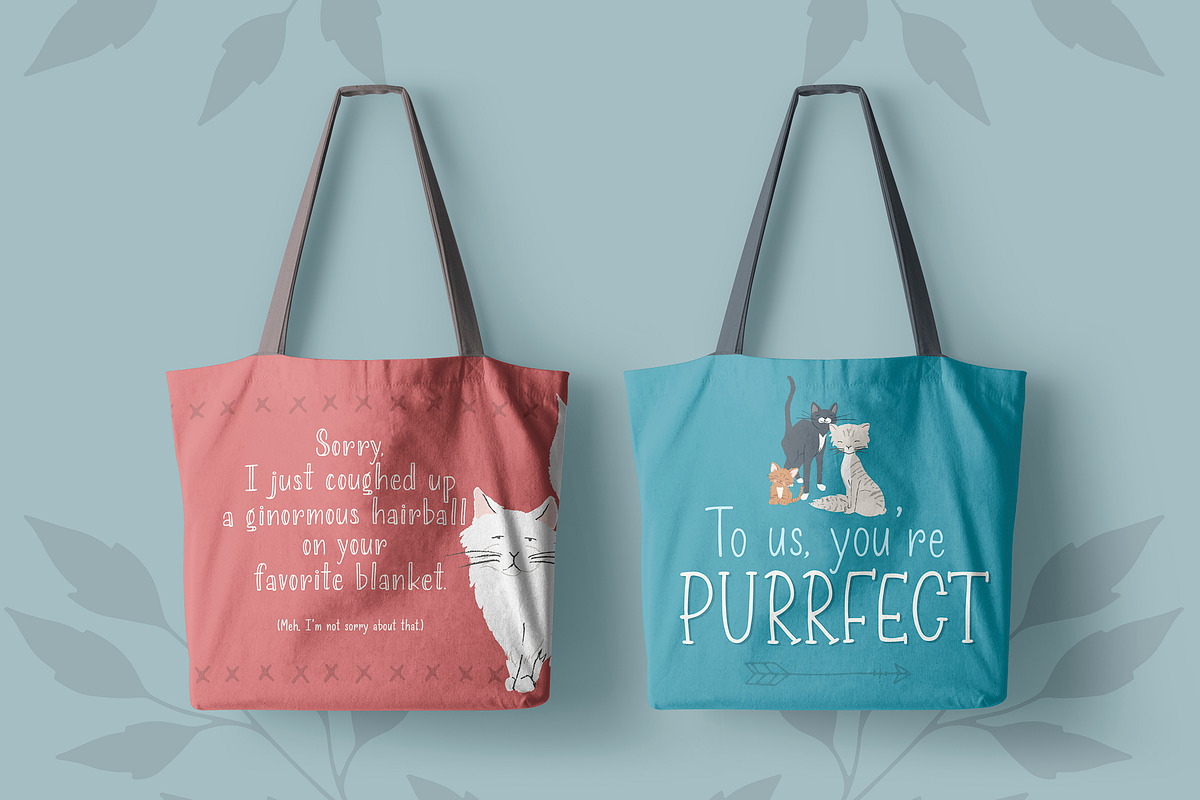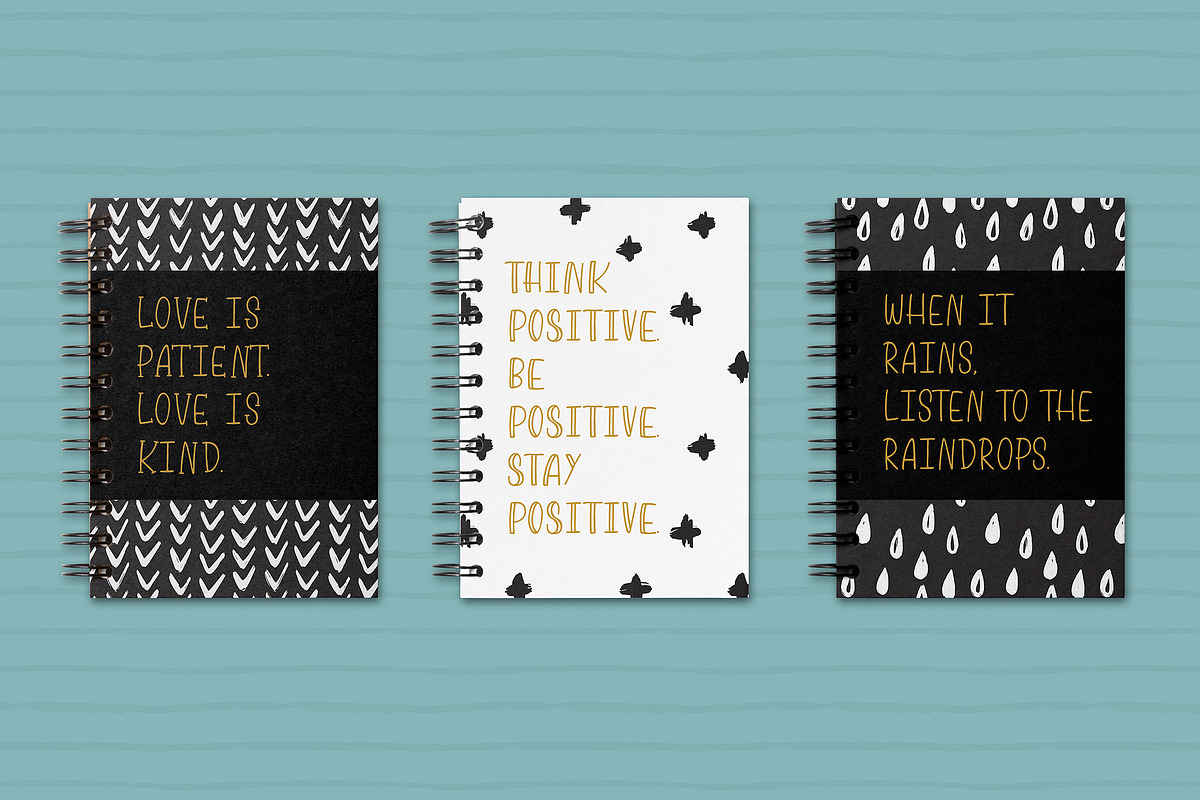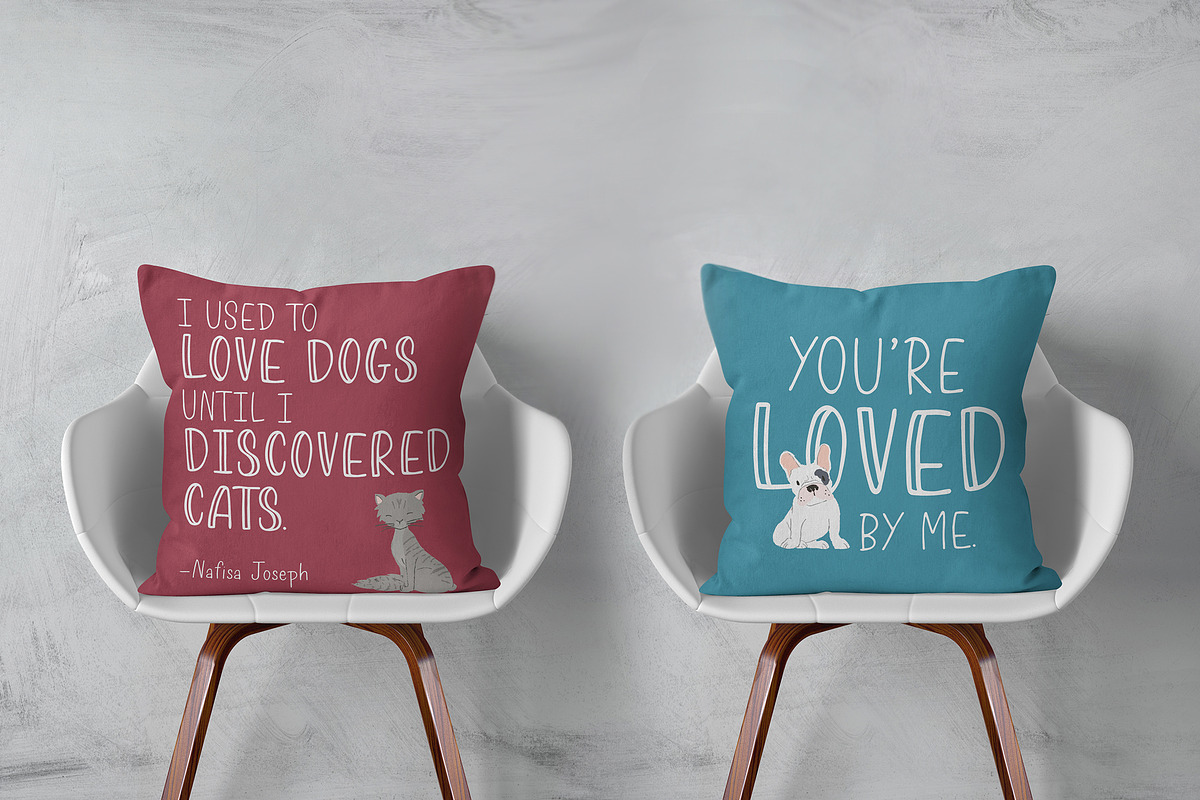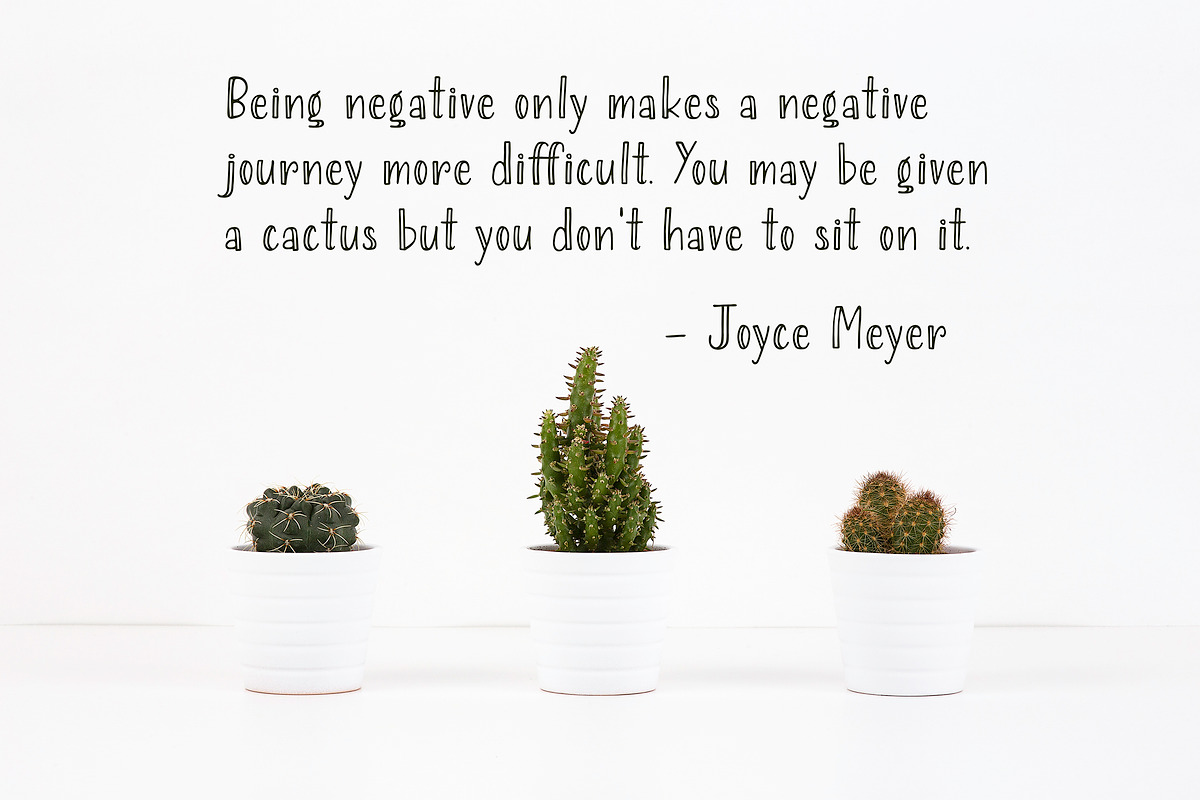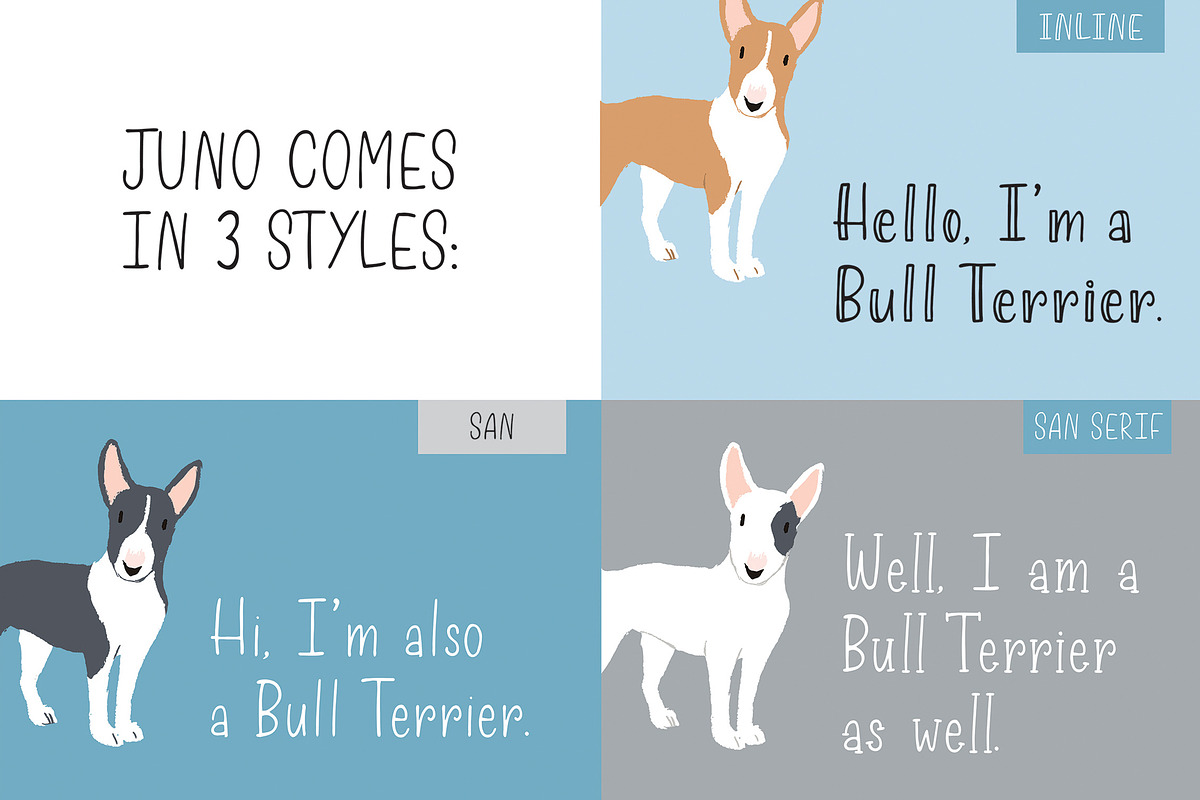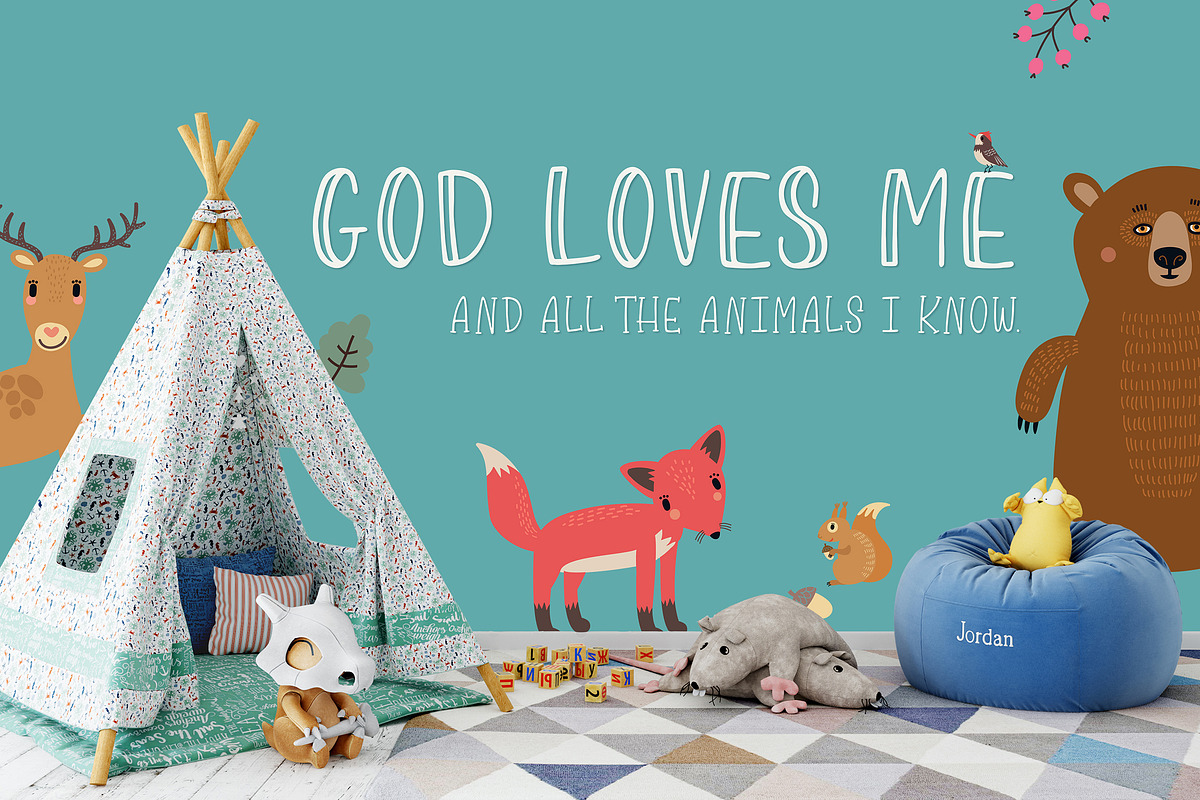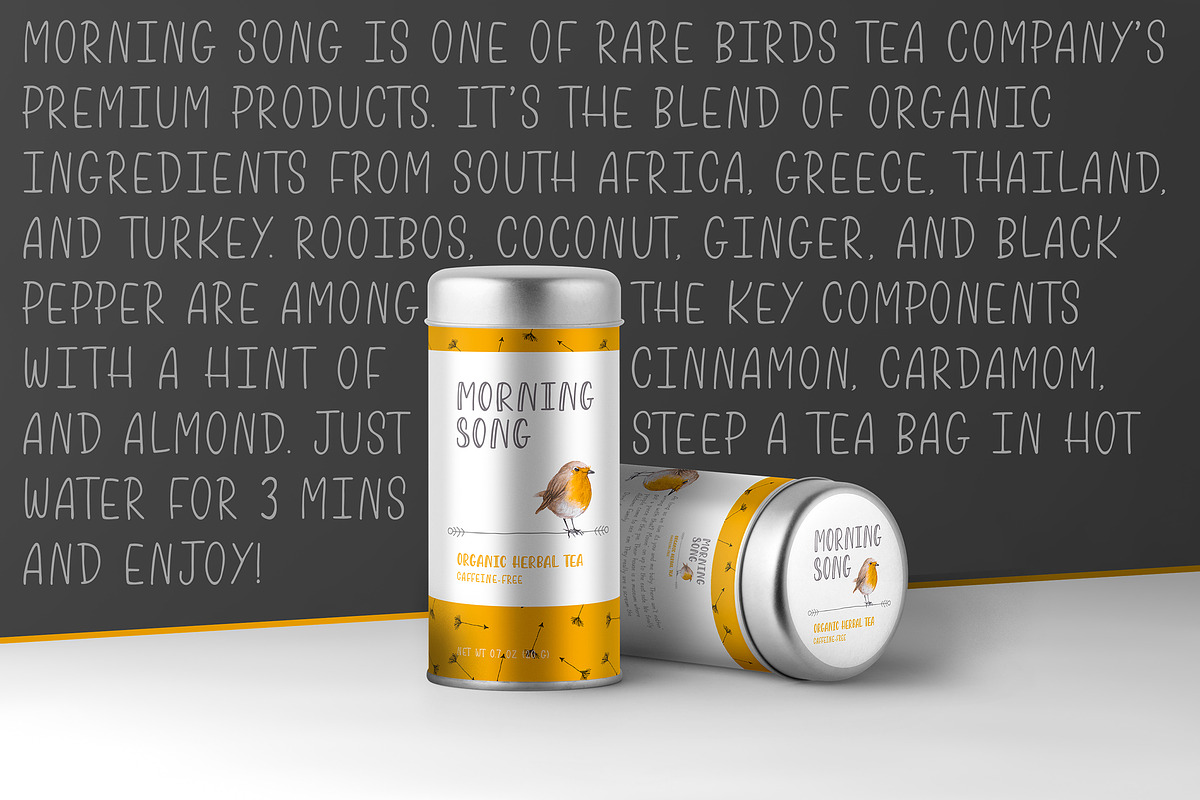
Juno, Friendly Font Trio
Juno, Friendly Handwritten font Trio
Juno is a handwritten font trio: sans serif, serif, and inline. This new font family includes caps and lowercases. Each style and character are simple, happy, and welcoming. The fonts are perfect for projects like scrapbooking, branding, poster, invitations, greeting cards, merchandise, blogging, and social media posts.
- This new font family includes caps and lowercases.
- All Juno font family includes Multilingual support for Western European Languages.
- Juno Inline
- Juno Sans Serif
- Juno Serif